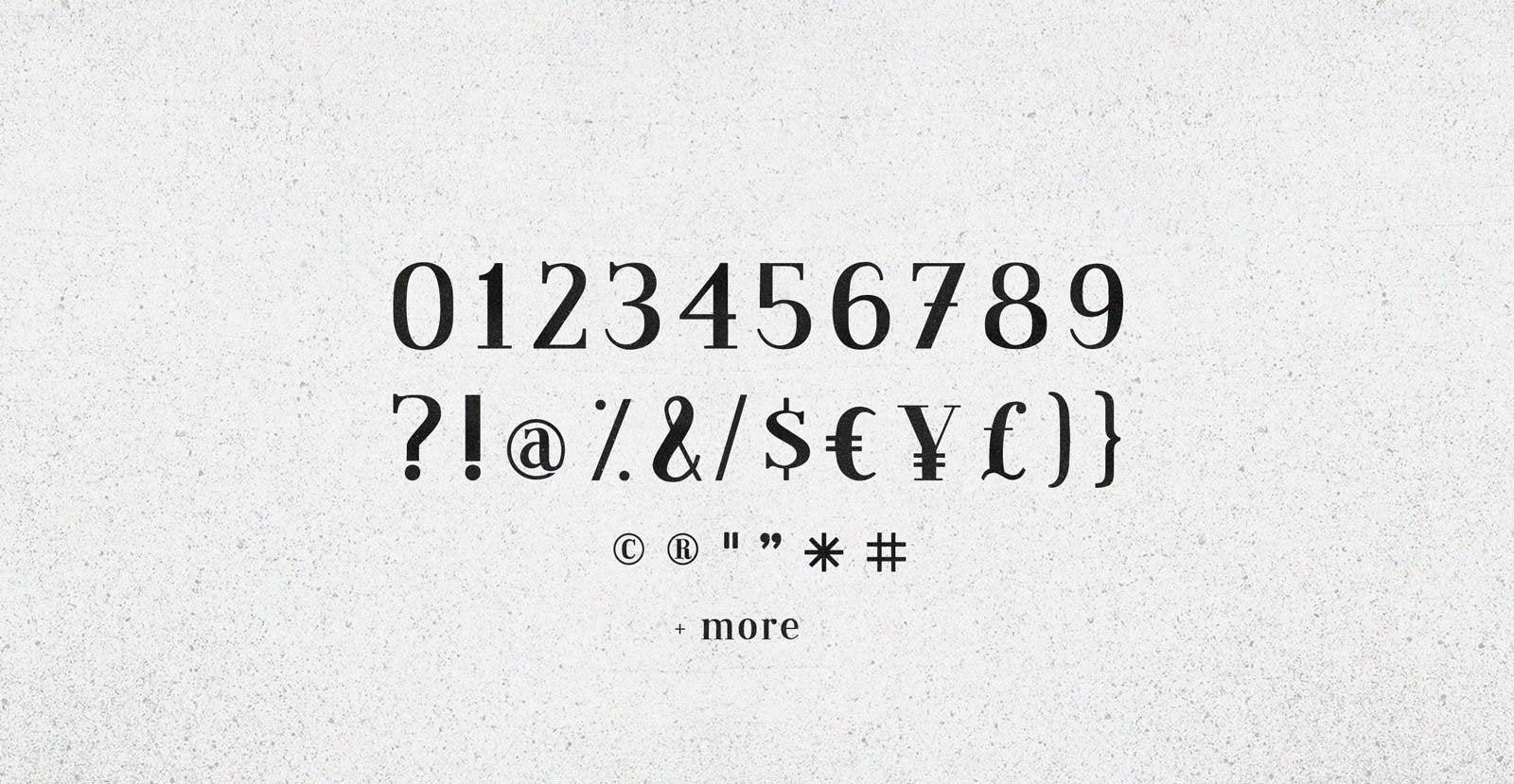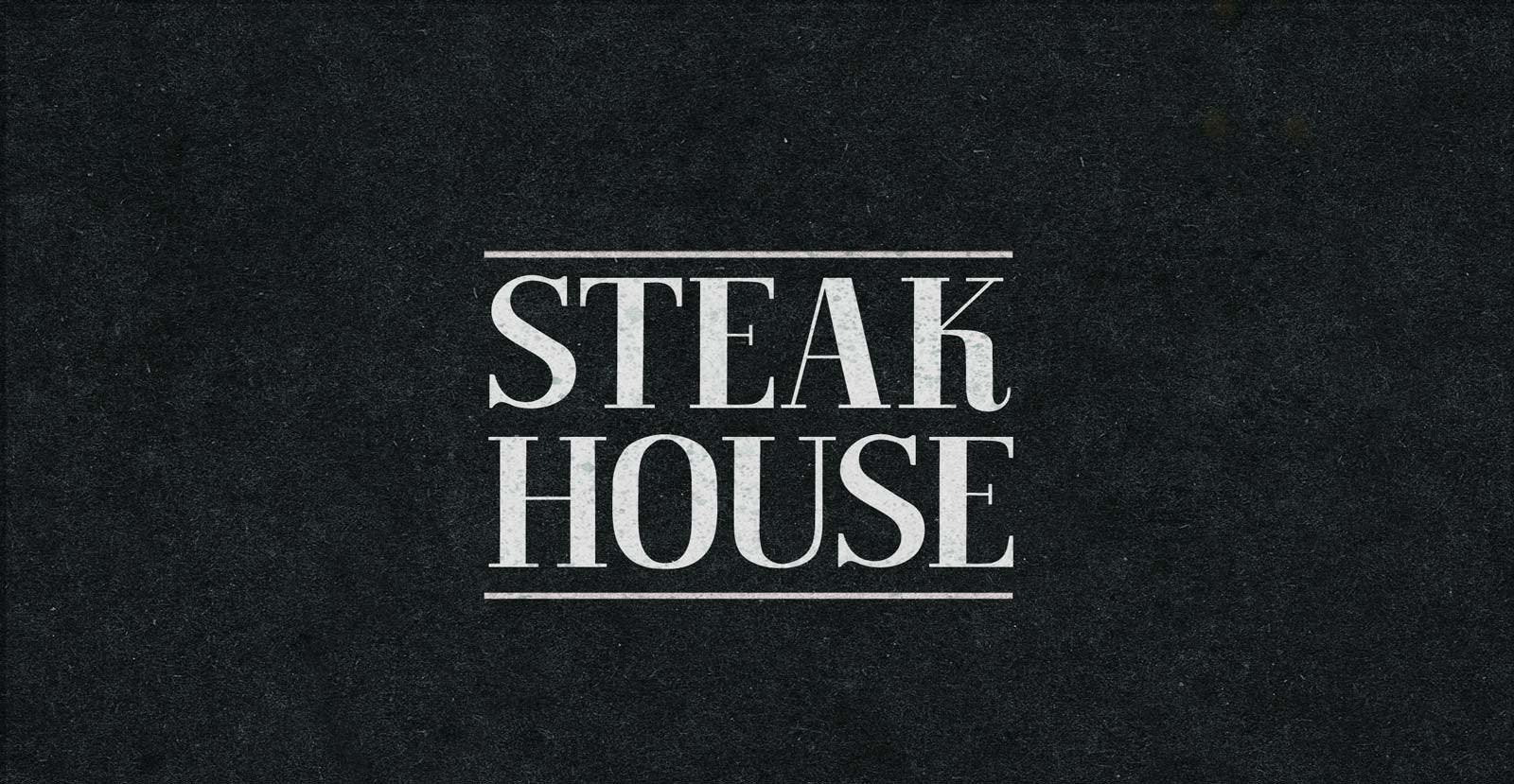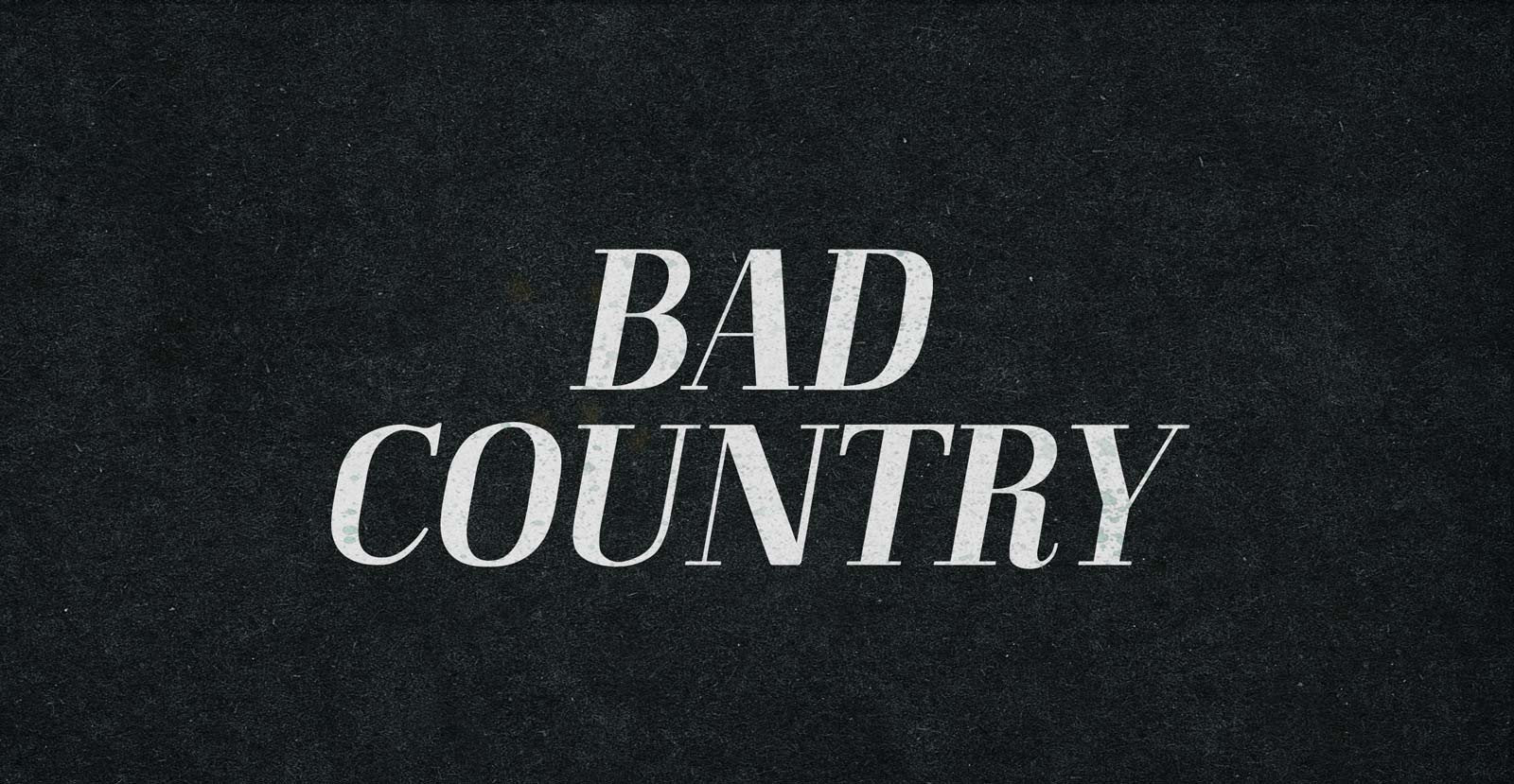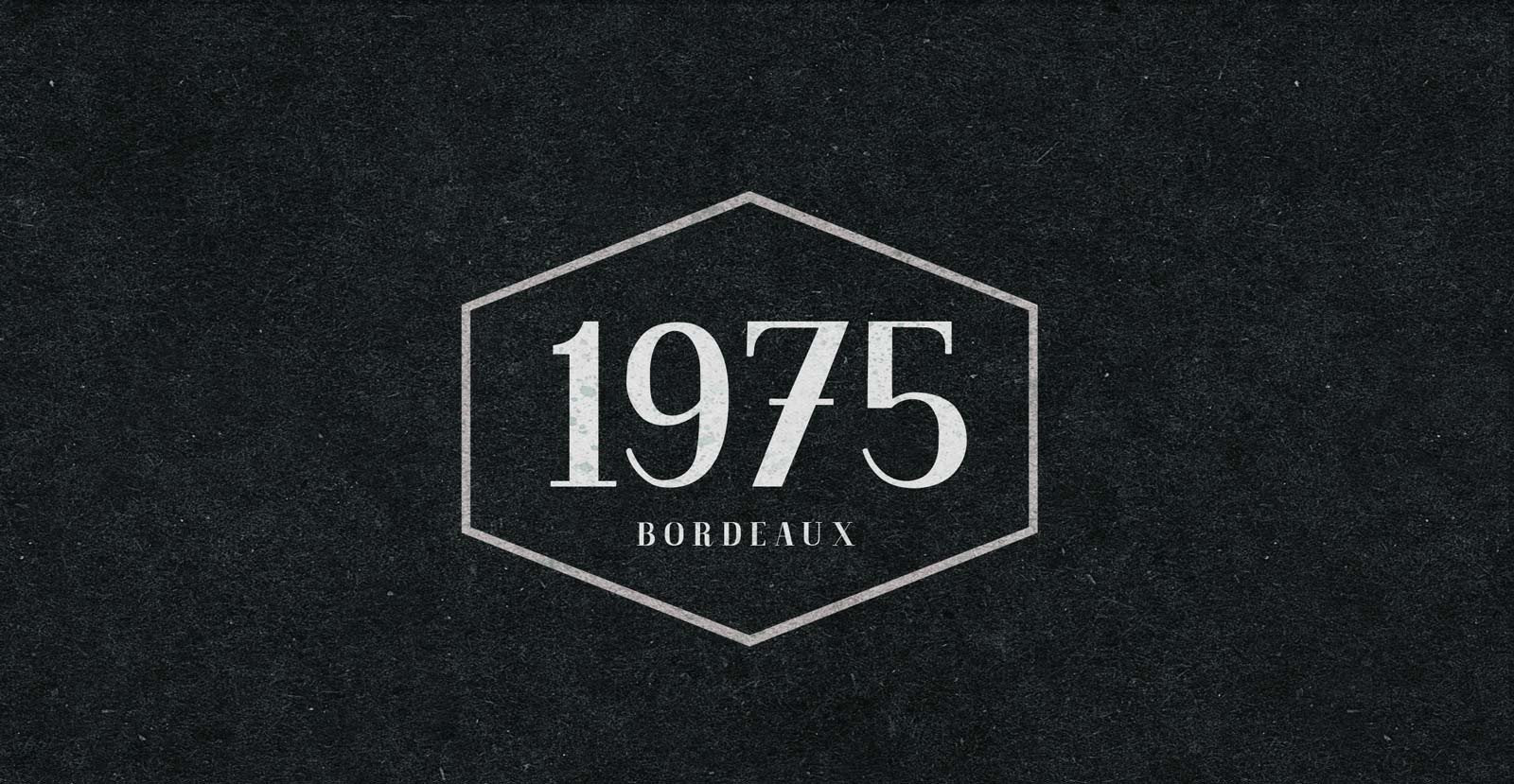
Real Talk
Handwritten Serif Font
Real Talk packs the same lip flapping smacks and pharyngeal grunts as any old nonsense. But while a baby can only babble, a grown man can mean something. Put words in perspective, located on the axes of breadth and depth, and live by them. Do what you say. Say what you know. Know what you feel. Talk Real.